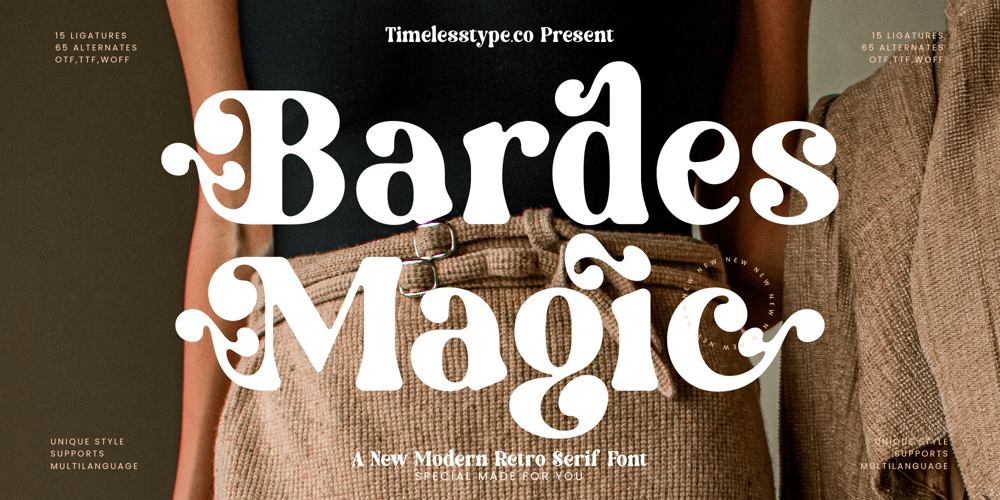
Bardes Magic Font Family was designed by Heru Utama Putra and published by Timelesstype Studio. Bardes Magic contains 2 styles and family package options. Bardes Magic – New Modern Retro Serif Font , from Timelesstype, Suitable for any projects such as: logos, branding projects, homeware designs, product packaging, mugs, quotes, posters, shopping bags, t-shirts, book covers, name card, invitation cards, greeting cards, label, photography, watermark, special events, and all your other luxury and beautiful projects that need a Luxury Serif taste.